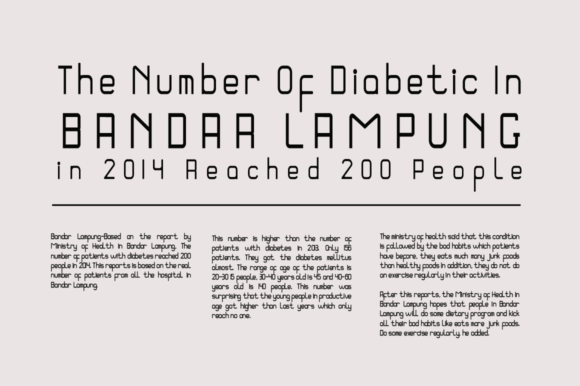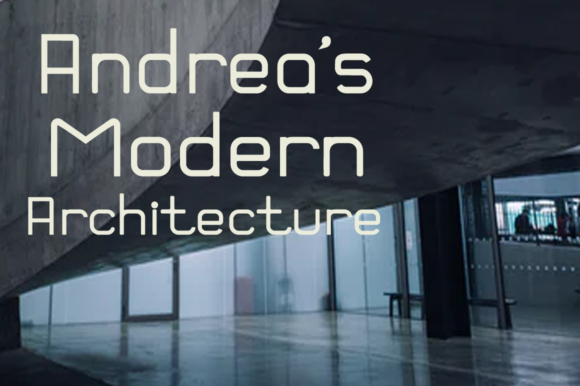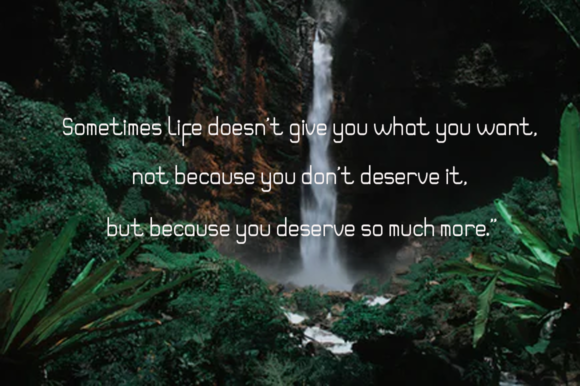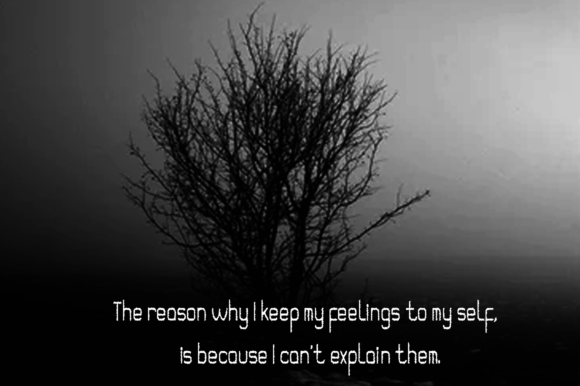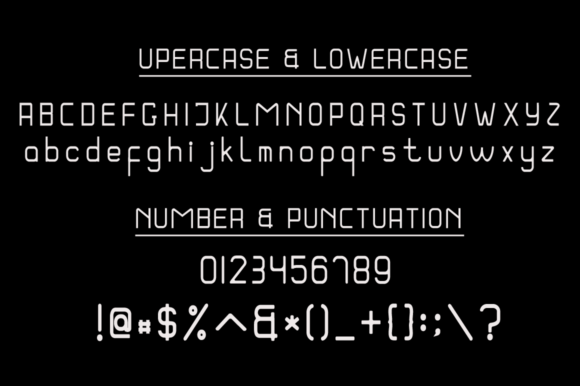
Andalusia is a futuristic and techno-looking sans serif font that has been a game-changer for me. Its clean lines and modern aesthetic make it perfect for a wide range of projects. In this article, I’ll share my experience with Andalusia, its features, and how to make the most of it in various design platforms.
First Impressions: What I Love About Andalusia
Here’s what makes Andalusia stand out:
- ✨ Versatility: Andalusia can easily be matched to an incredibly large set of projects, from tech brochures to futuristic branding.
- ✅ Clean and Modern Aesthetic: Its sans serif design gives it a sleek, contemporary look that’s hard to resist.
- 💡 Excellent for Digital Use: The font is optimized for digital platforms, making it perfect for websites, apps, and digital marketing materials.
Honest Review: The Not-Perfect-but-Almost Section
While Andalusia is a fantastic font, there are a few quirks to consider:
- 🤔 Limited Serif Options: As a sans serif font, it might not be the best choice for projects requiring a traditional or serif look.
- ⚠️ Requires Careful Sizing: Like many modern fonts, careful attention to size and spacing is needed to ensure it looks its best.
Andalusia, like many modern fonts, comes with a range of OpenType features and glyphs that can enhance your designs. These include:
- Stylistic Alternates: Offers variations of letters and numbers for a more customized look.
- Ligatures: Combines letters for a more fluid, connected text appearance.
The Designer Inspiration Behind Andalusia
Andalusia was inspired by the futuristic landscapes of sci-fi movies and the sleek lines of modern architecture. Its designer aimed to create a font that embodies innovation and forward-thinking, perfect for projects that demand a modern edge.
| Font Name | Andalusia Font |
| Author | Gatra Std |
Q: Is Andalusia suitable for body text?
A: Yes, Andalusia is designed to be legible on both digital and print platforms, making it suitable for body text in many projects.
Q: Does Andalusia support multiple languages?
A: Andalusia supports a wide range of languages, but it’s always best to check the character set to ensure it covers your specific language needs.
Q: How does Andalusia compare to other sans serif fonts?
A: Andalusia stands out with its futuristic and techno look, offering a unique aesthetic compared to more traditional sans serif fonts.